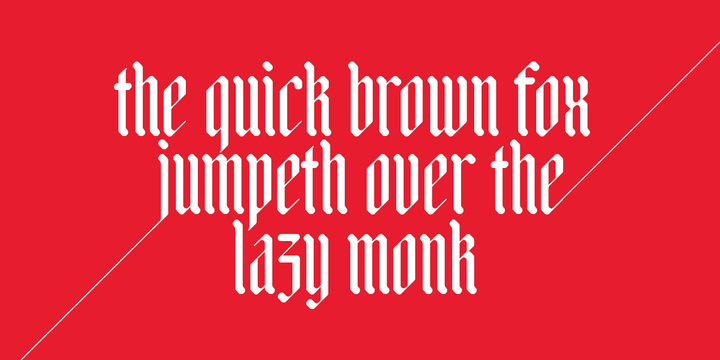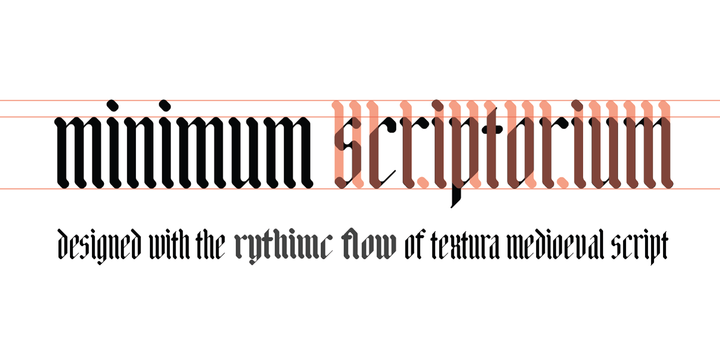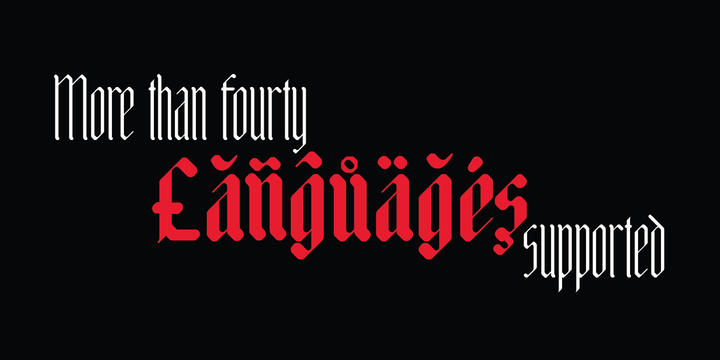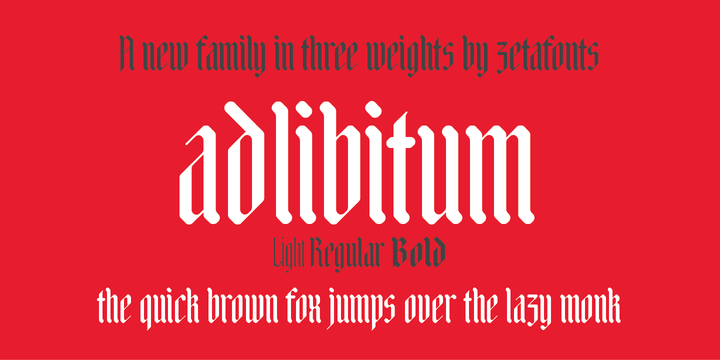
Adlibitum Font Family
Adlibitum is a display typeface designed as a contemporary restyling of old textura medioeval script characters. It features a strong vertical accent and a geometric design, with 45 degrees angles and soft round corners.